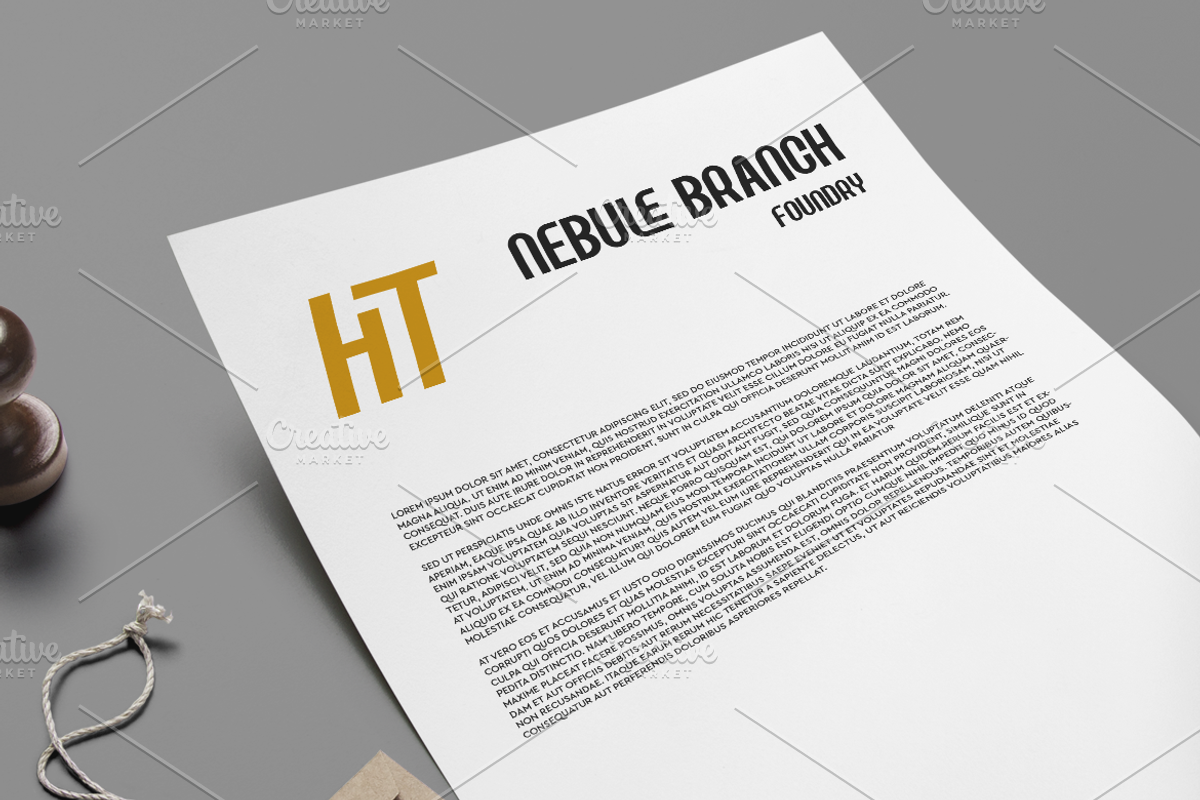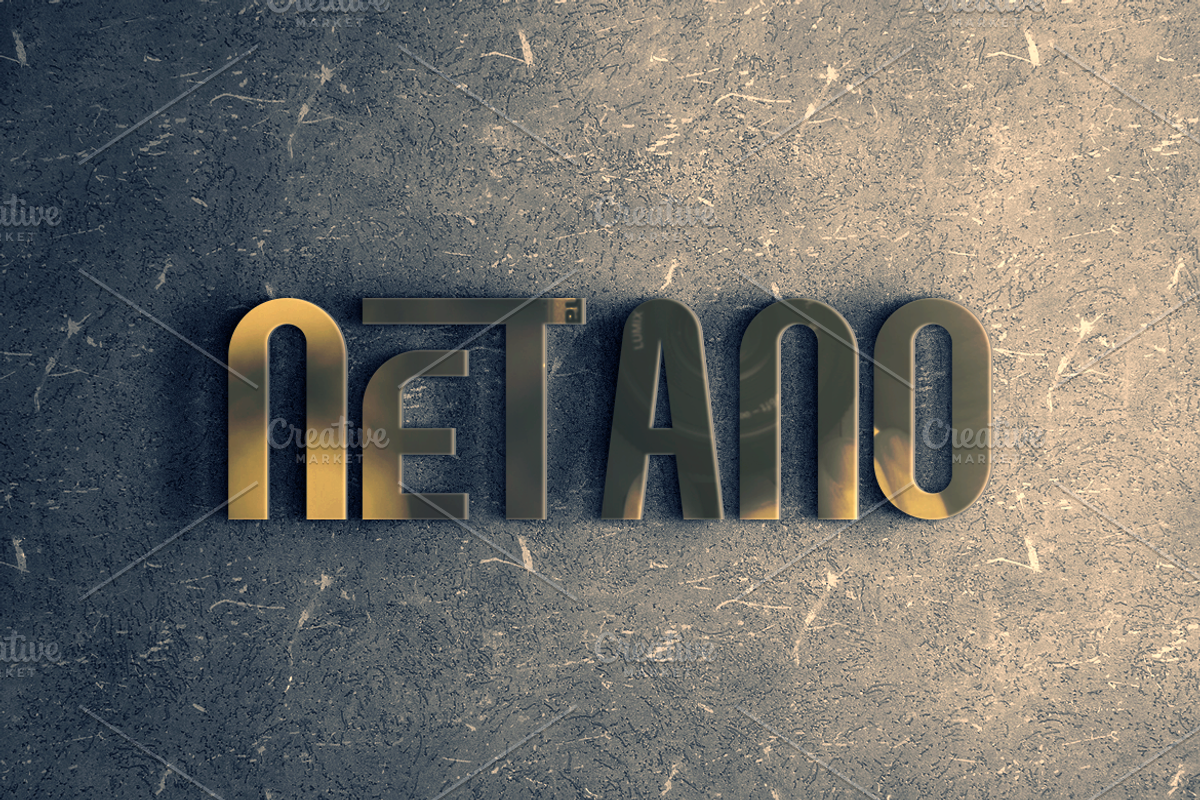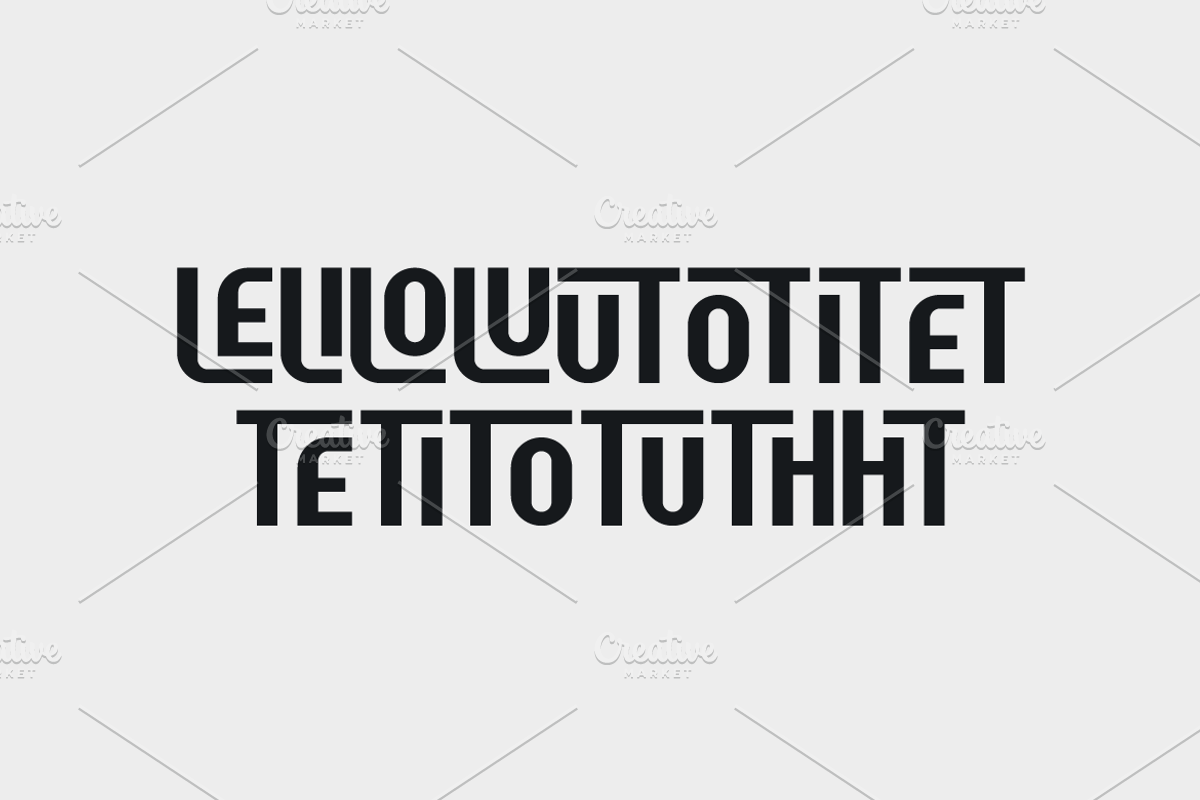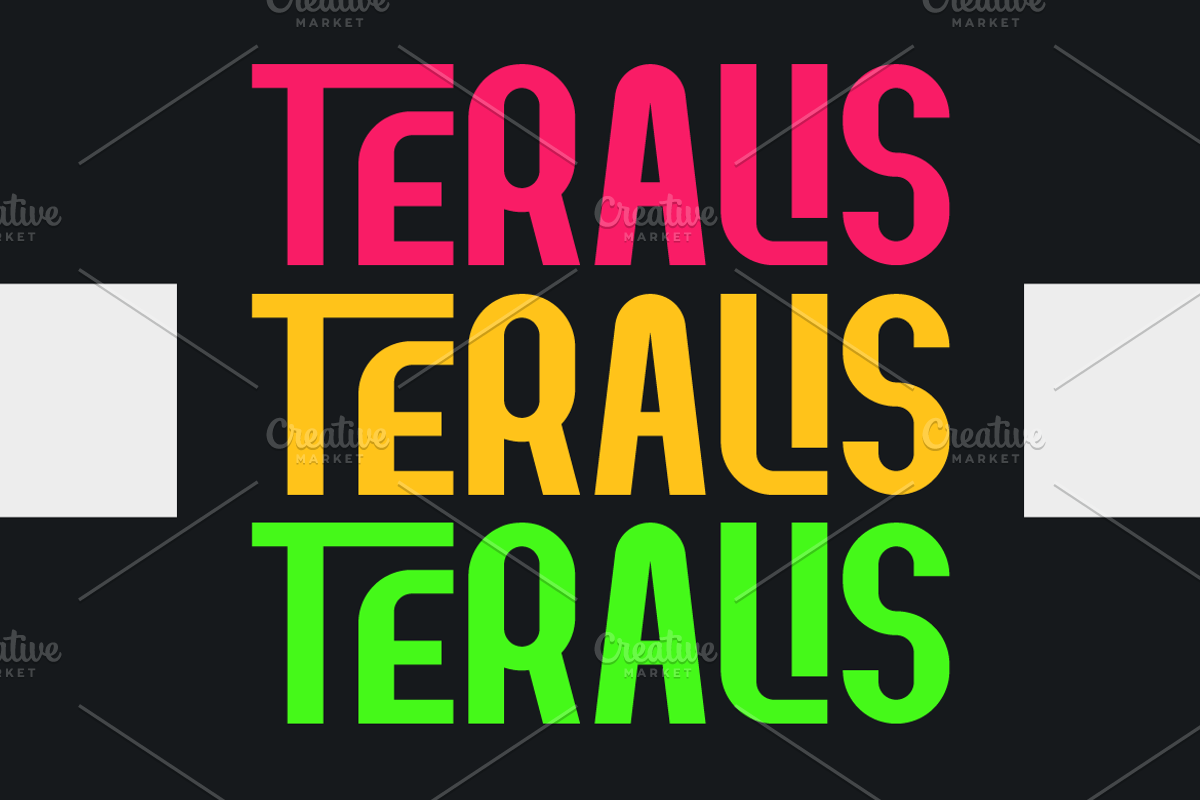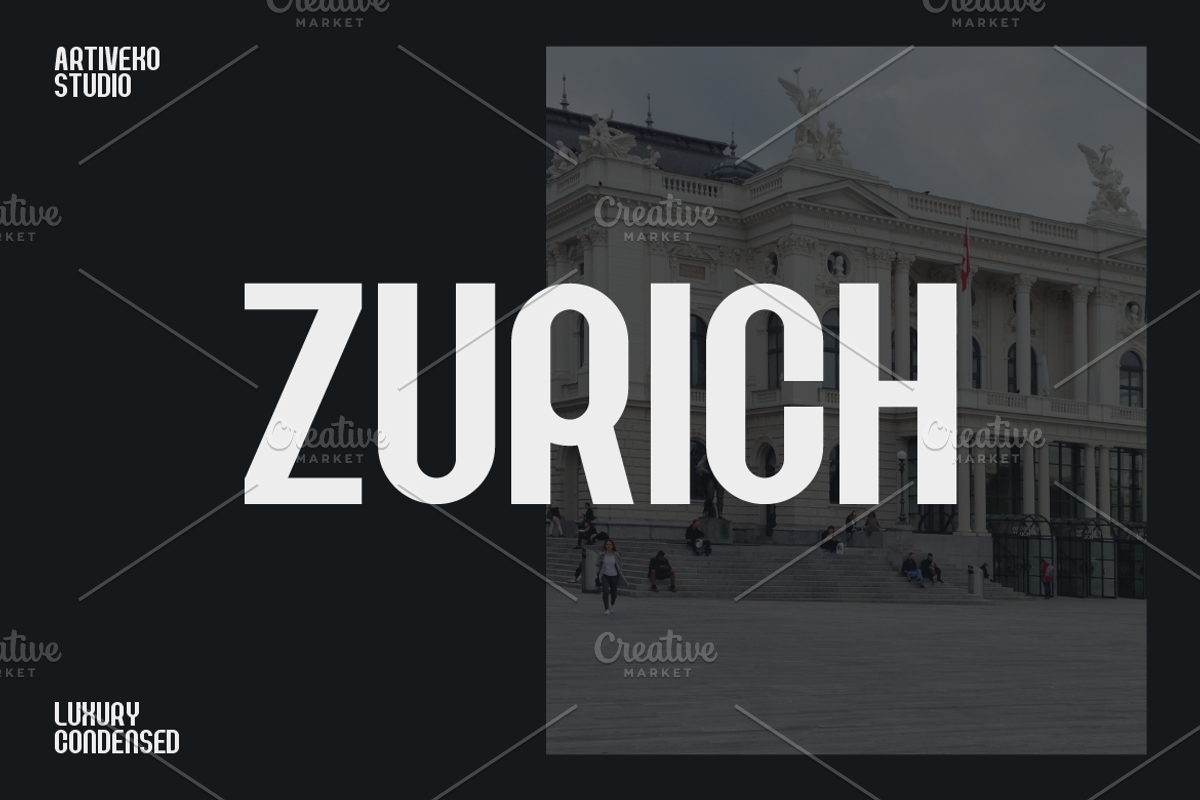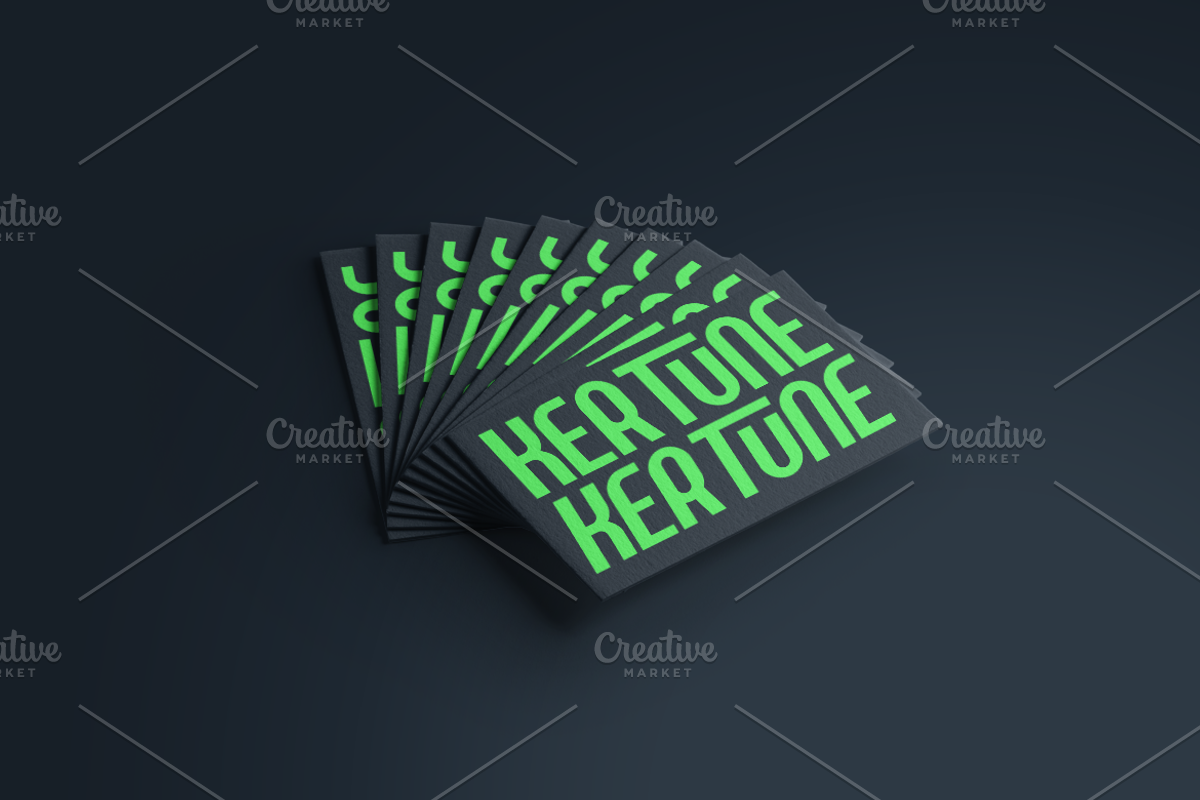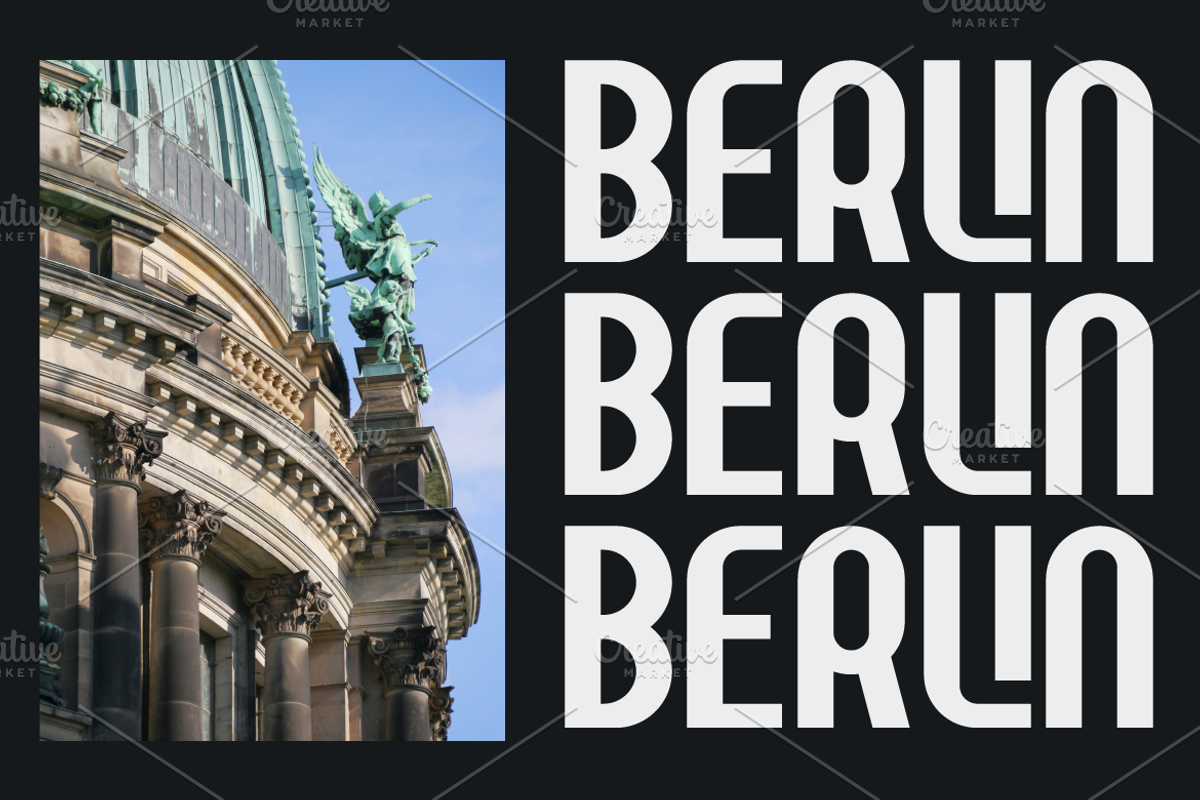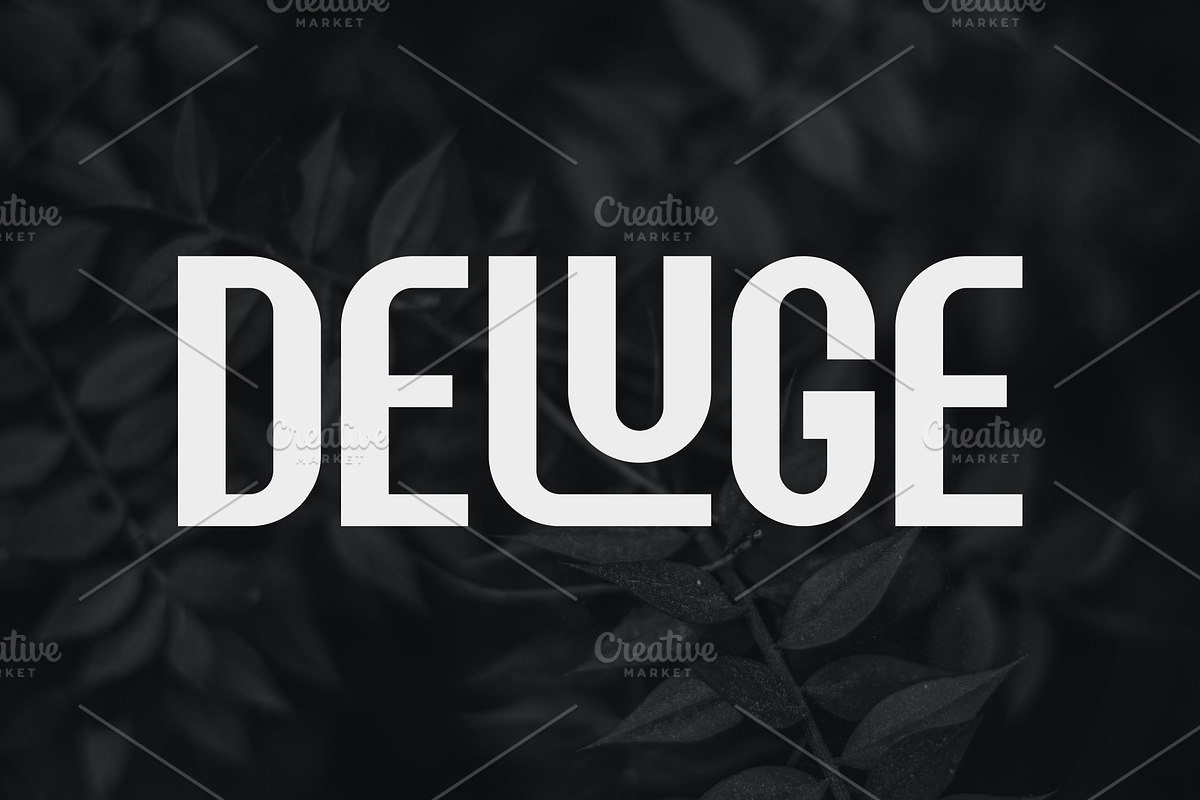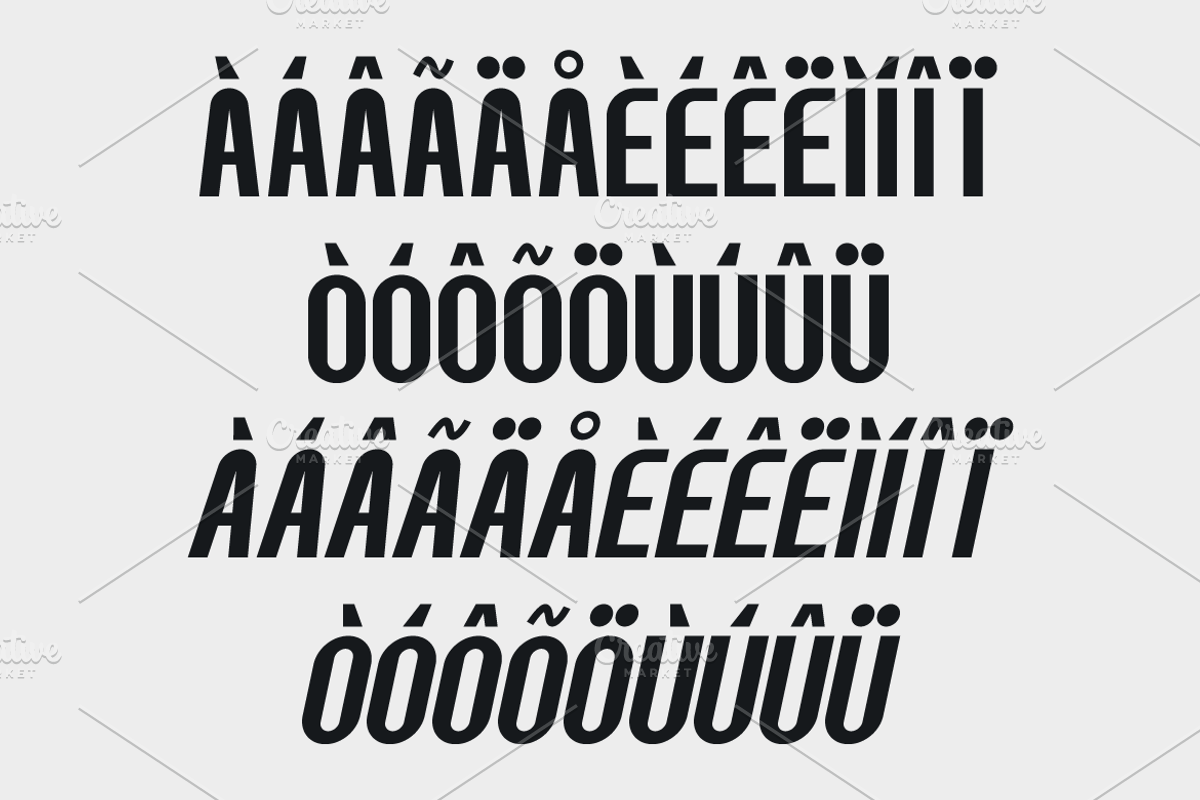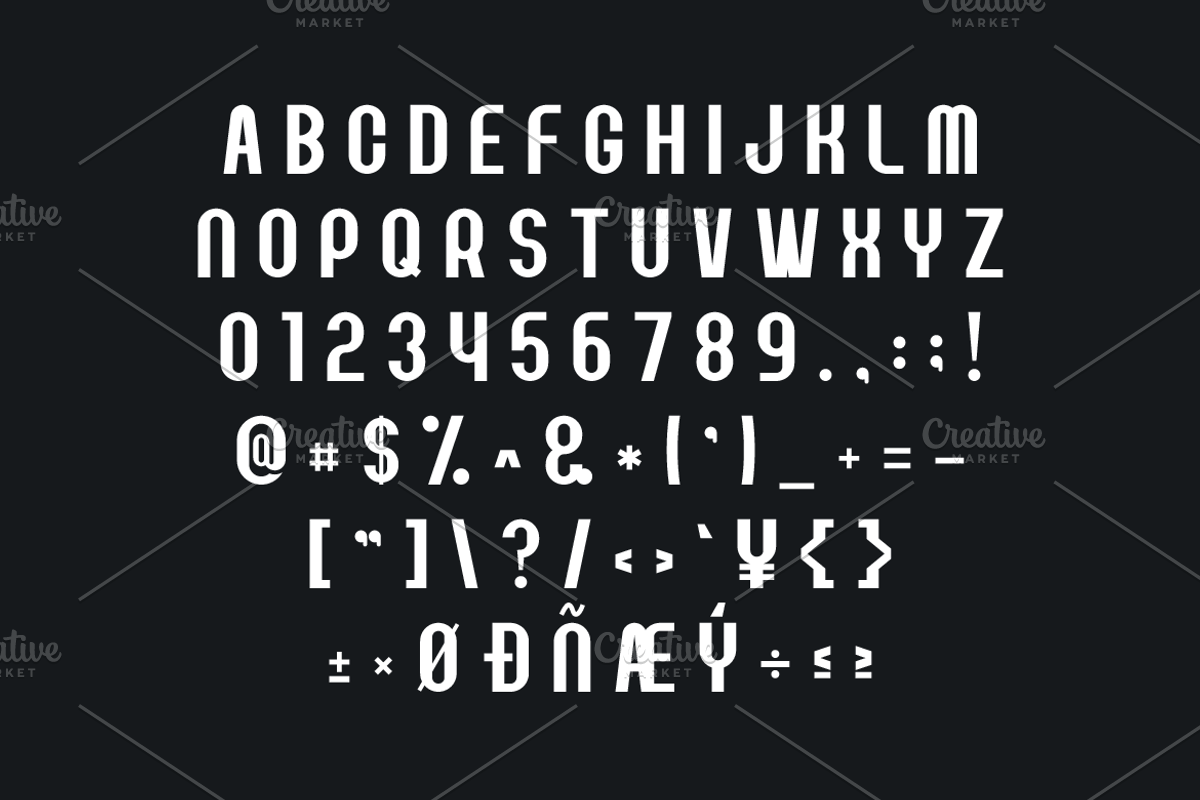
Deluge Condensed Sans Serif
Deluge is a condensed sans serif font, designed by Iwan Alwan. This unique typeface features distinct variations in uppercase and lowercase letters, adding a special touch to any text. With multilingual support and elegant ligatures, Deluge effortlessly combines style and versatility, making it perfect for diverse design projects.
- Ligatures and multilingual support